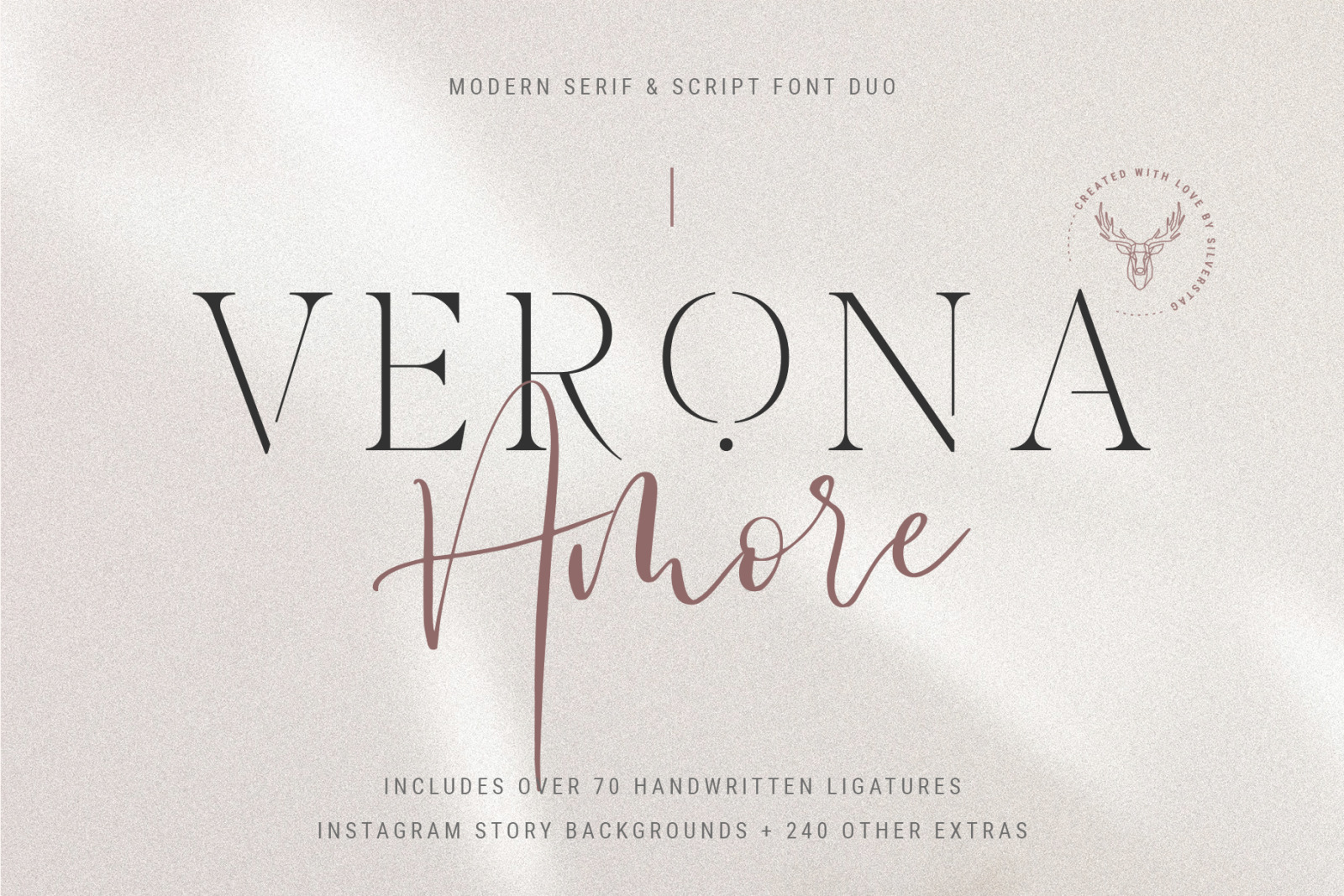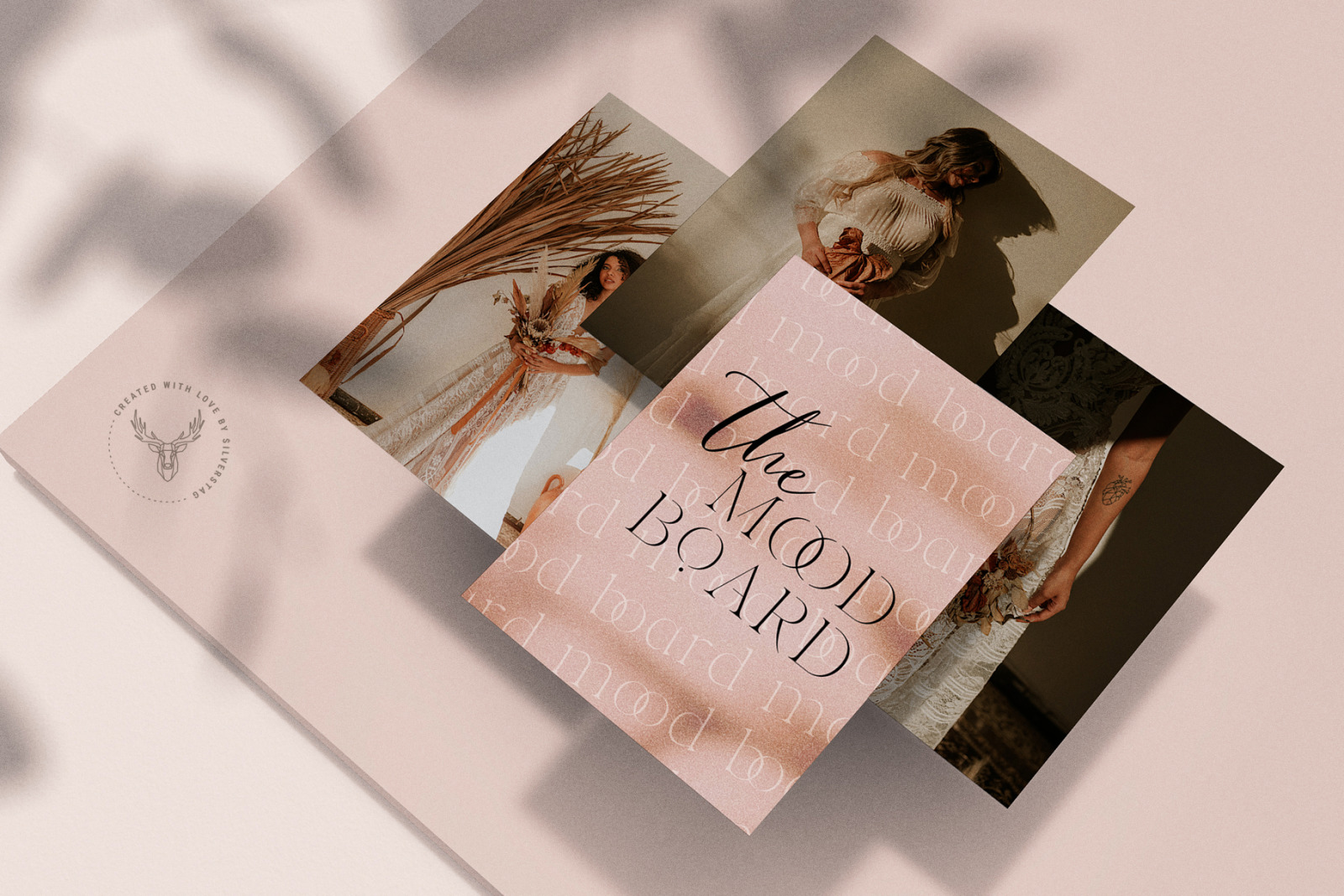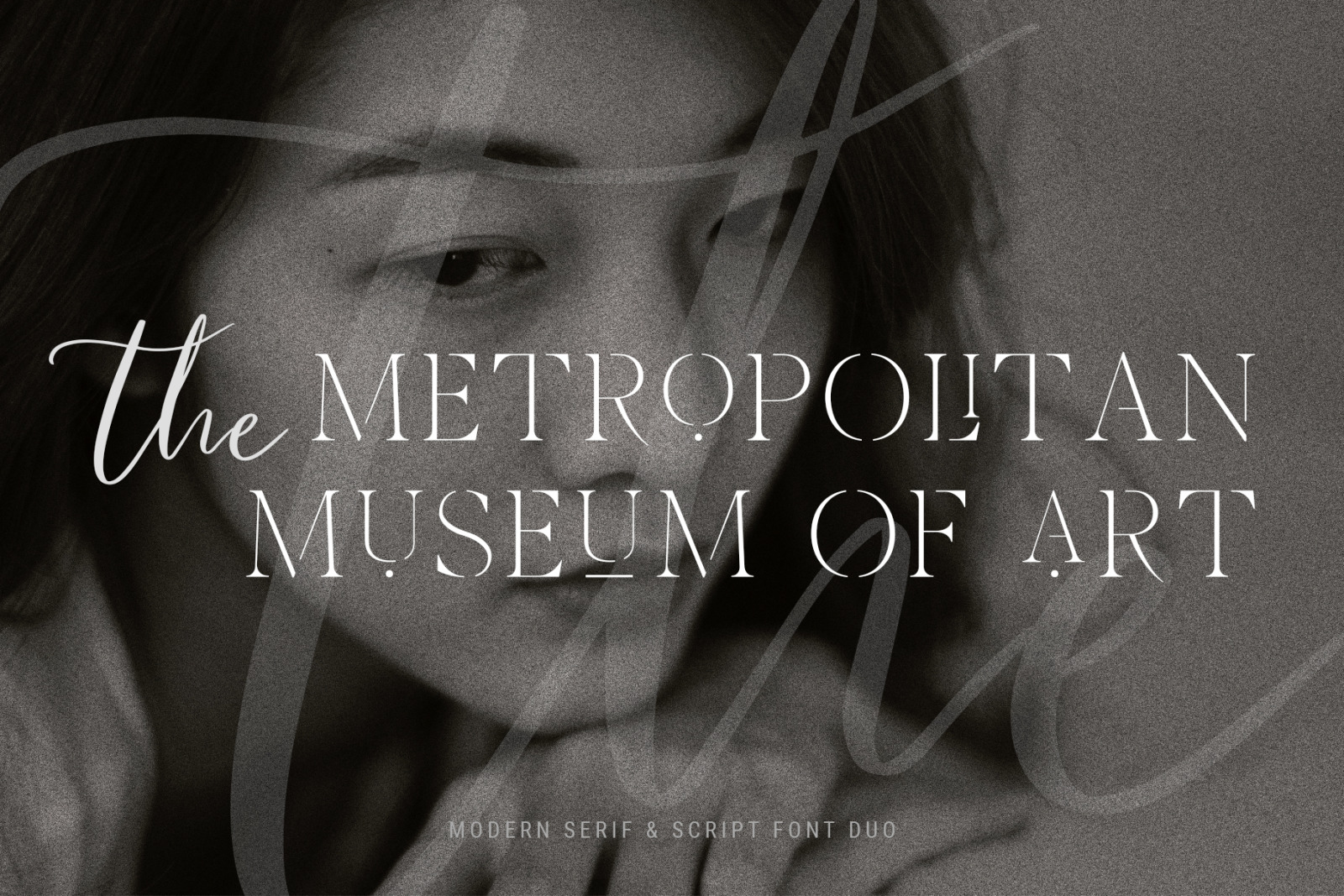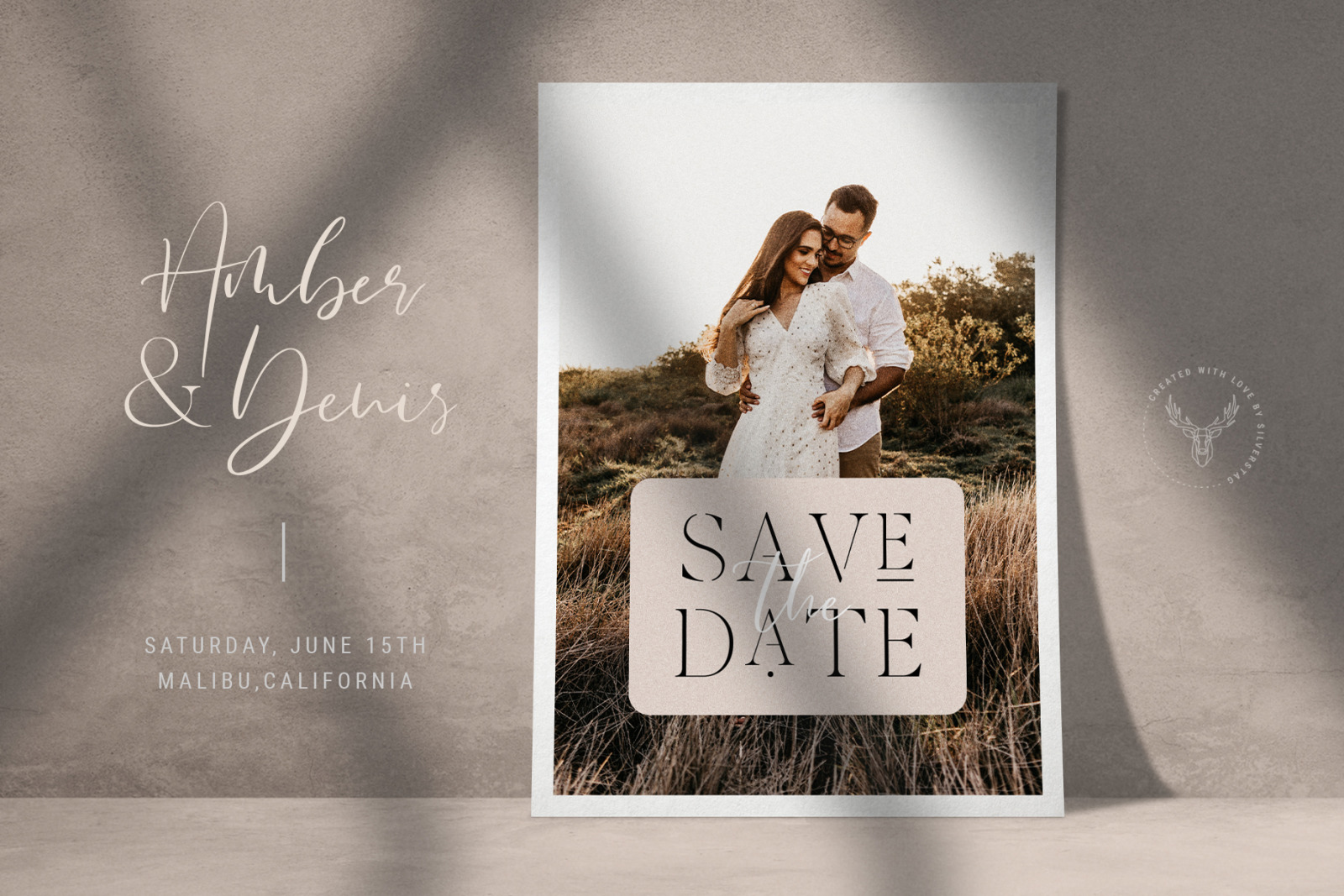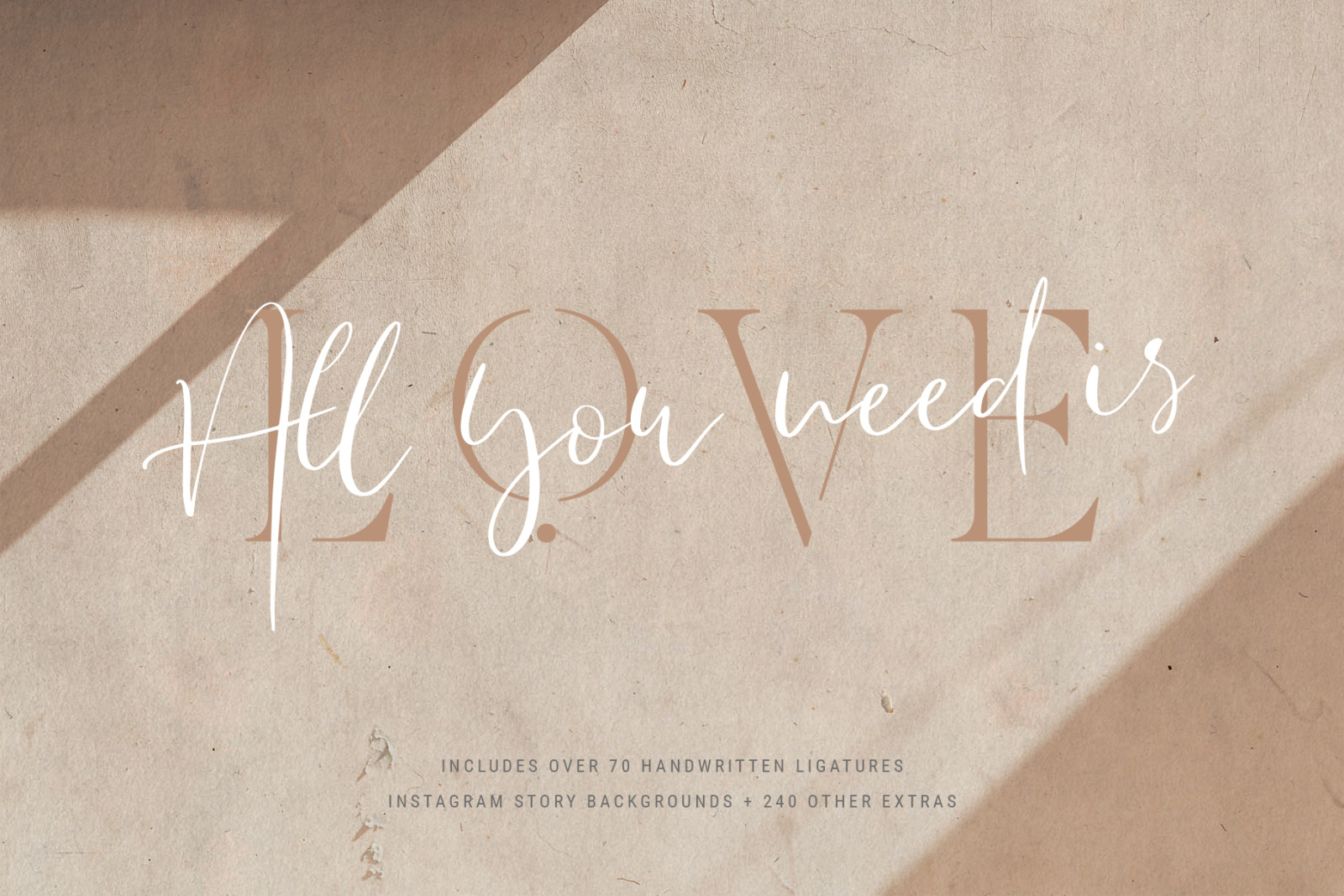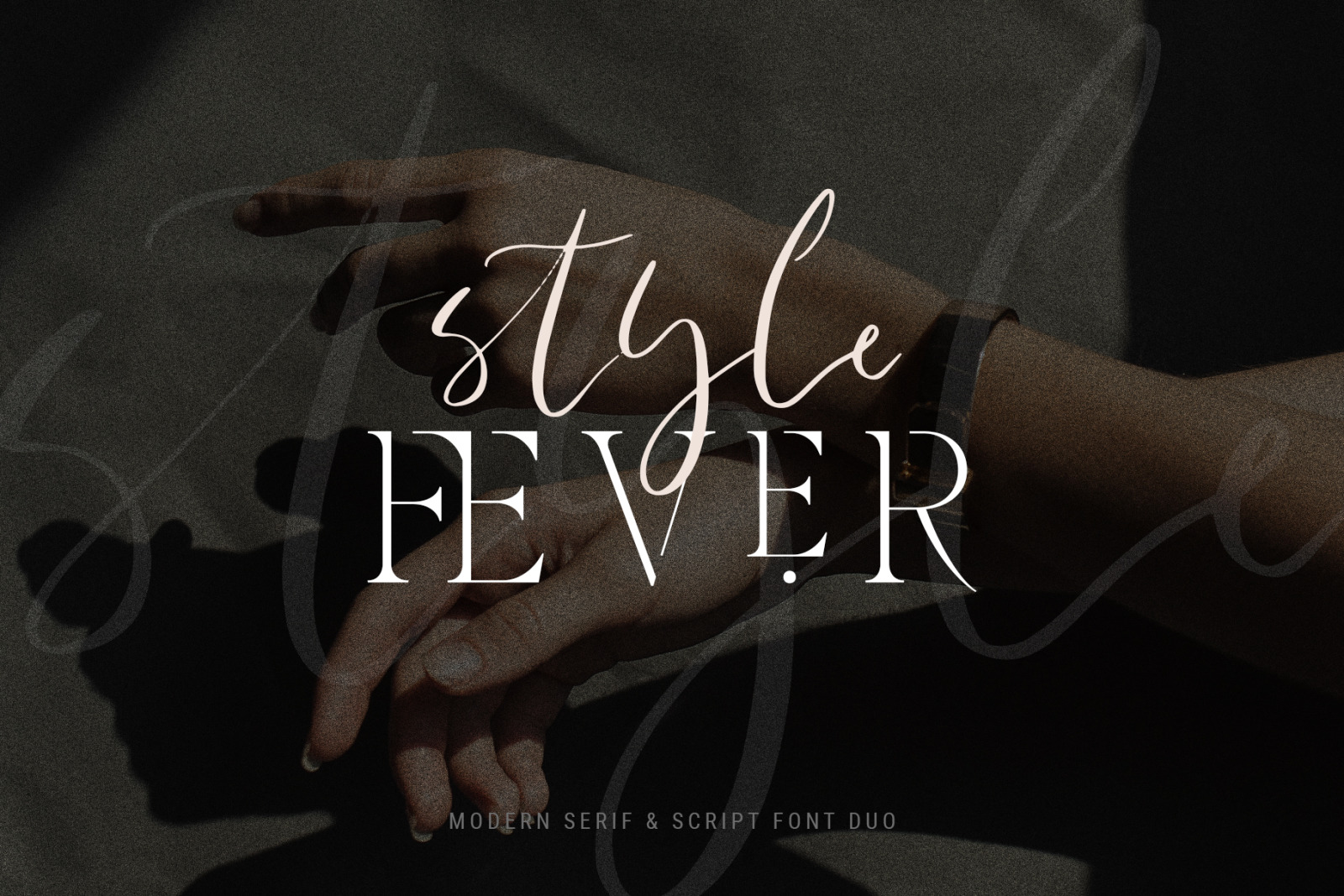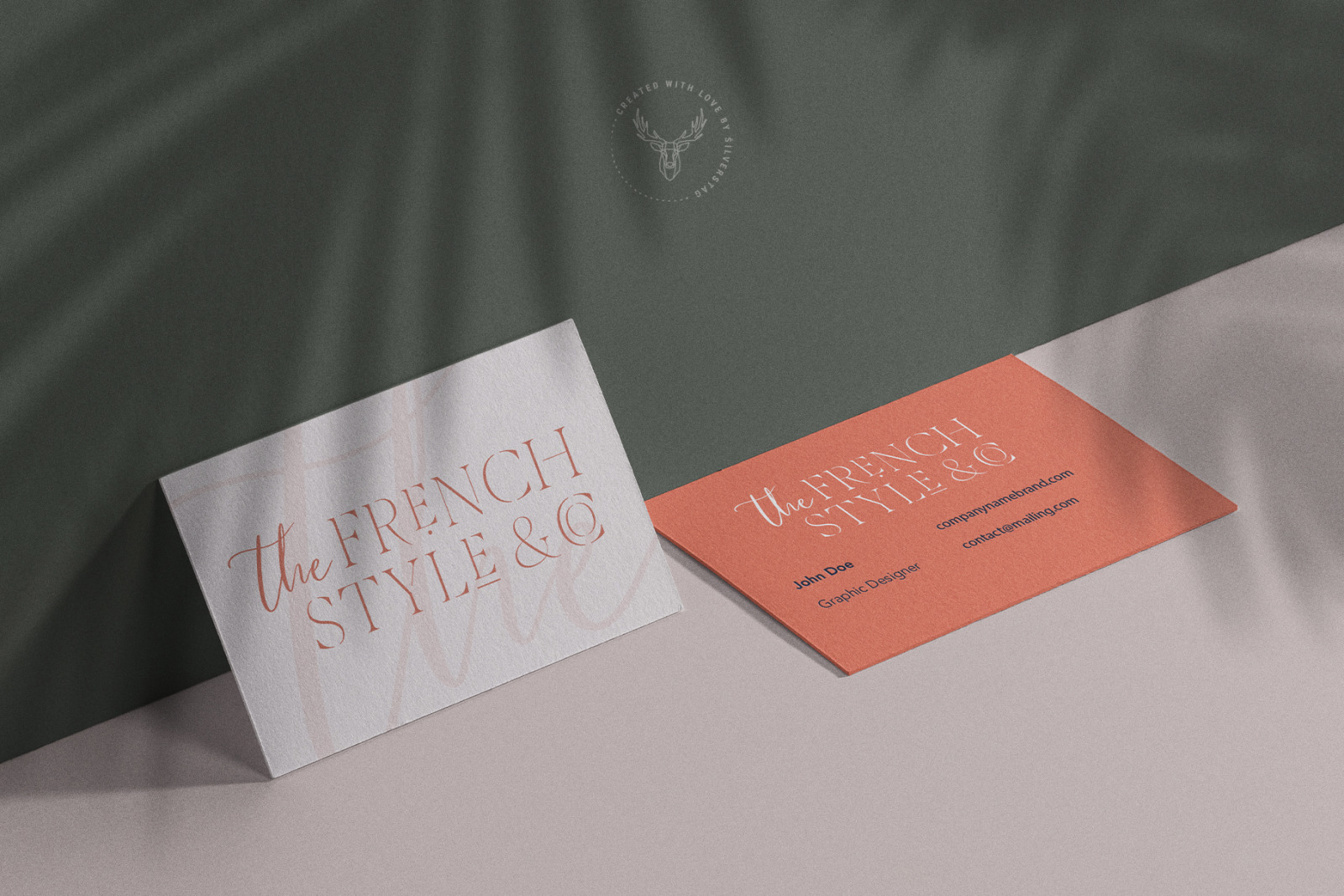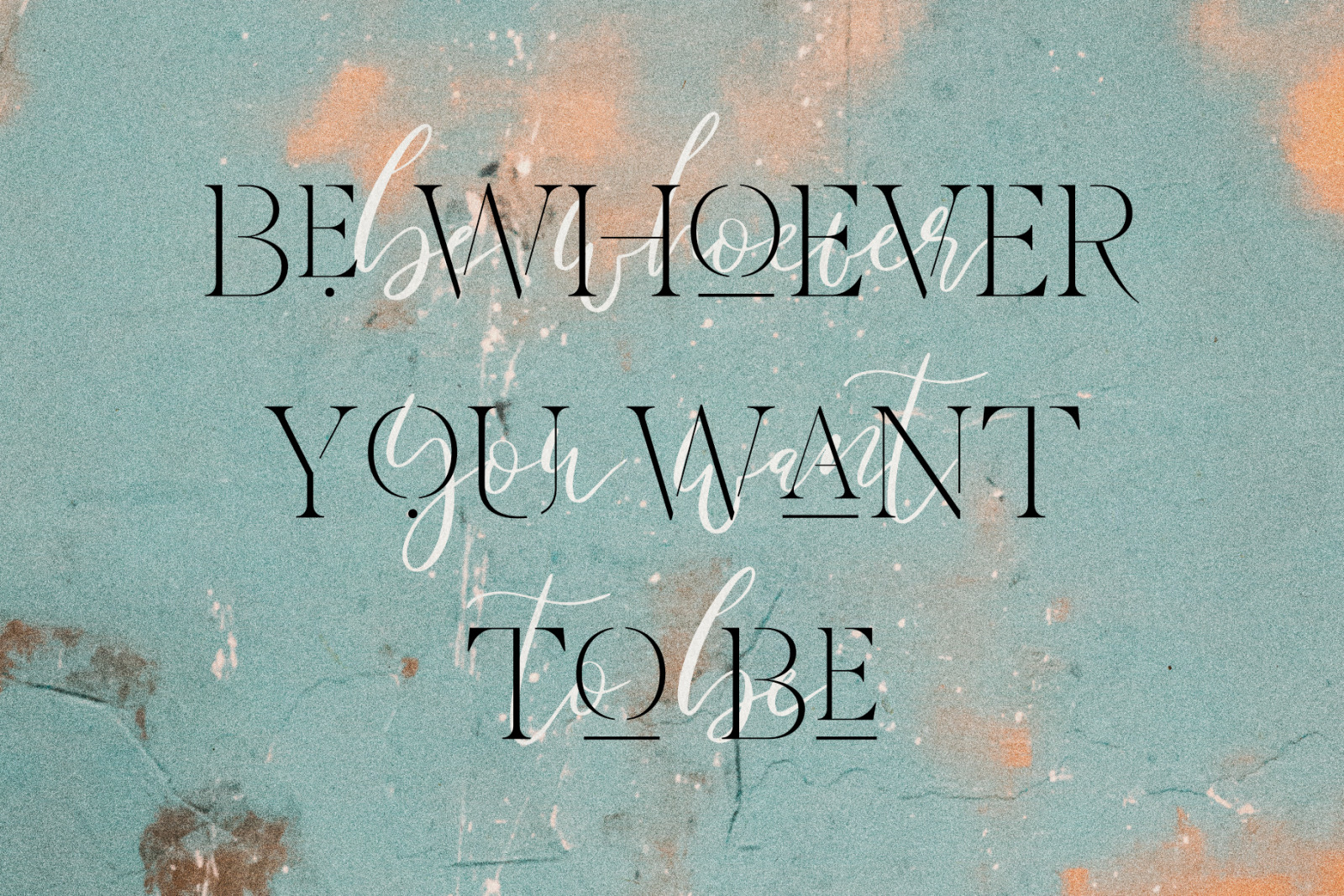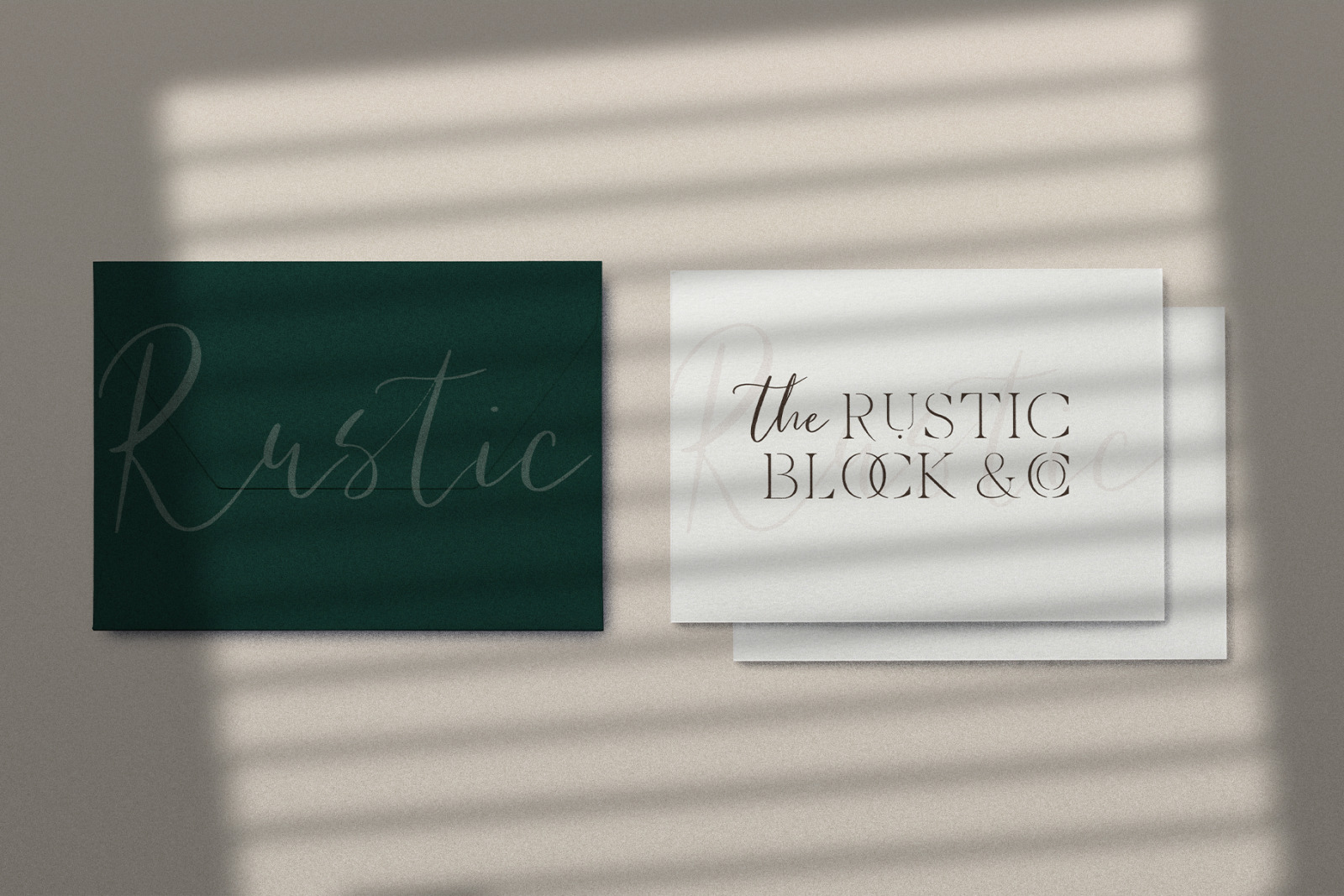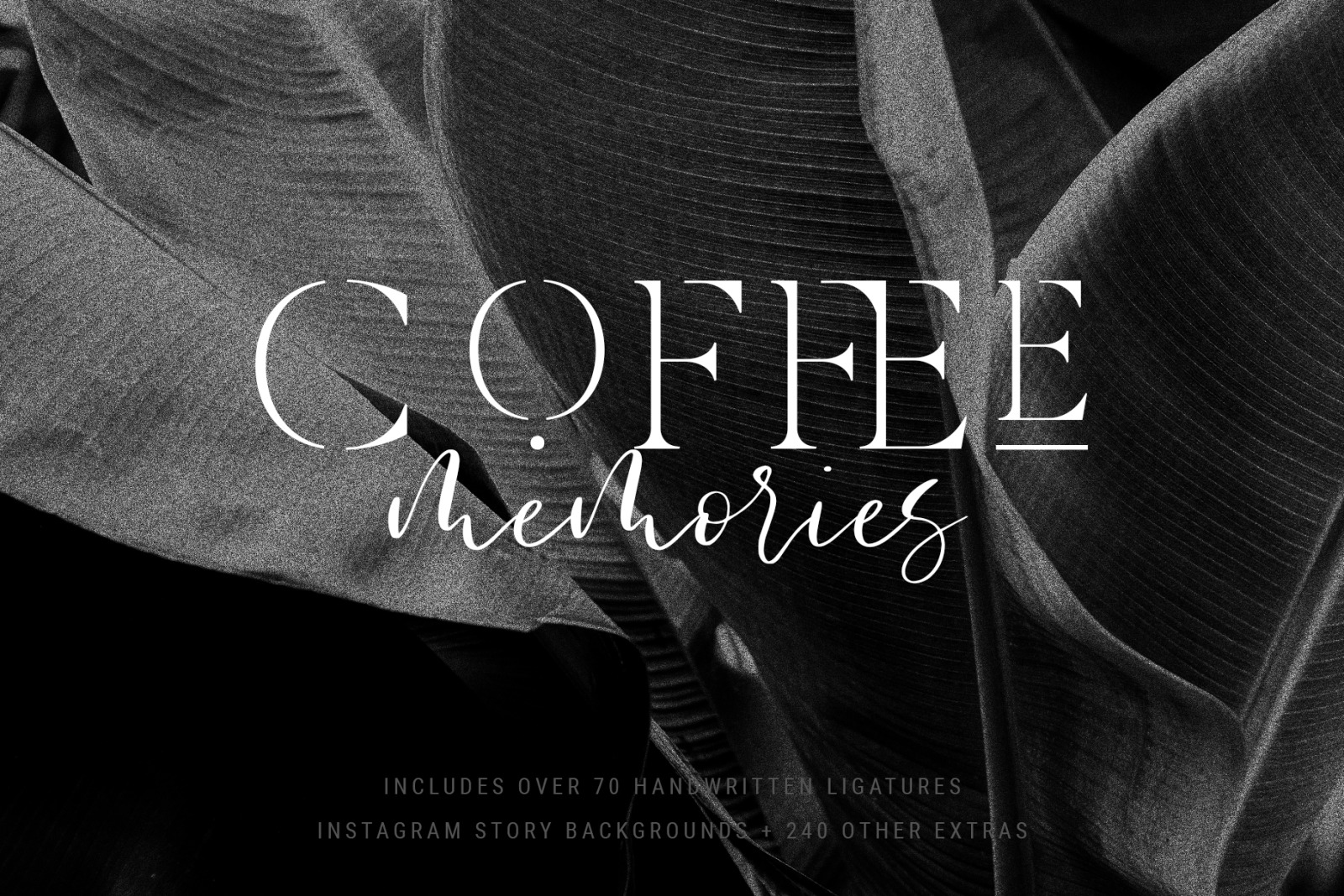
Verona Amore Font Duo & Extras
Are you ready for a stylish makeover? With two beautifully designed fonts? Well, you're definitely in the right place. Whether you have a client that needs a new chic logo, or you're designing your social media posts. Maybe you're preparing your wedding mood board, stationery, invitations, Verona & Amore are just perfect for all of that. Check out the photos I have prepared for you to get a better idea how well they work together.
Verona - verona.otf - Creative new Serif font with high contrast between thin and thick lines that will be useful for all your projects!
Amore Script - AmoreScript.otf - Fully handwritten signature font that is perfect for your graphic design projects!
Over 30 Ligatures & Alternates in Verona Serif Font
Over 50 Ligatures in Amore Script Font
Modern & Creative Design